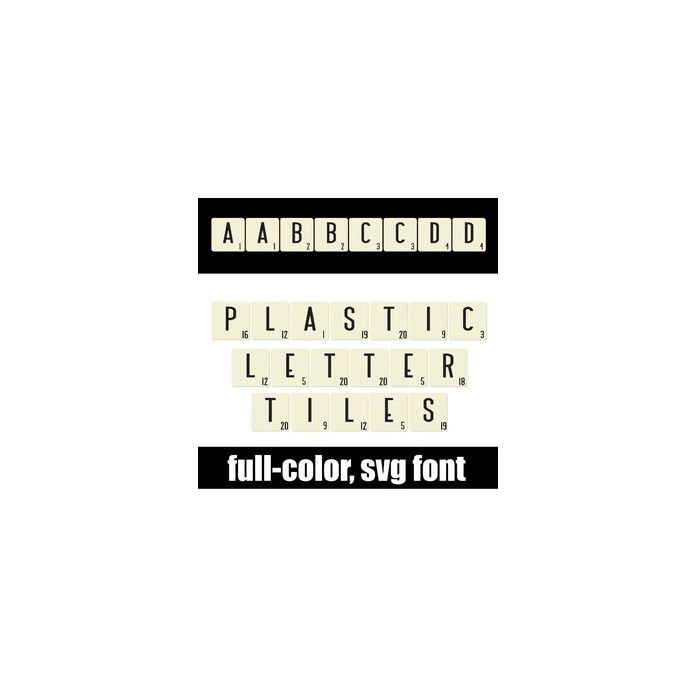
This full-color font feature white plastic letter tiles like you use in games. This font works best for titles, displays, posters and more. Please note color fonts will show as black in non compatible programs. This font type is compatible with Silhouette Studio.